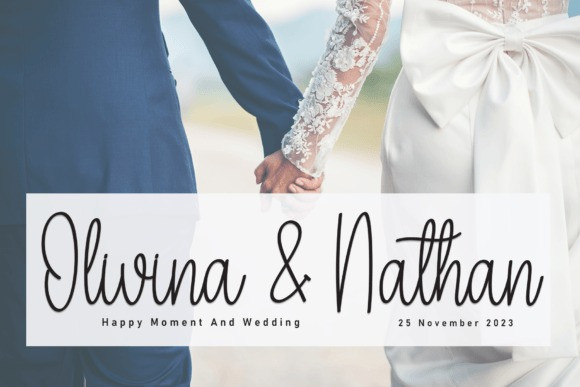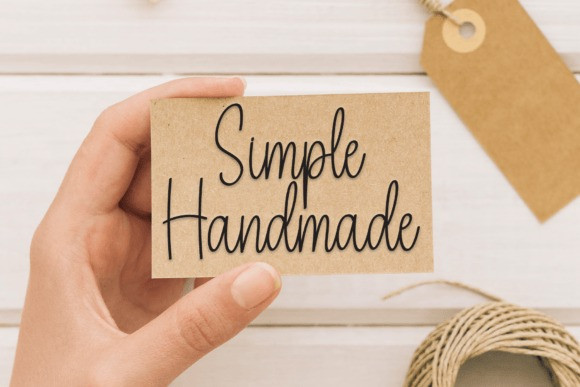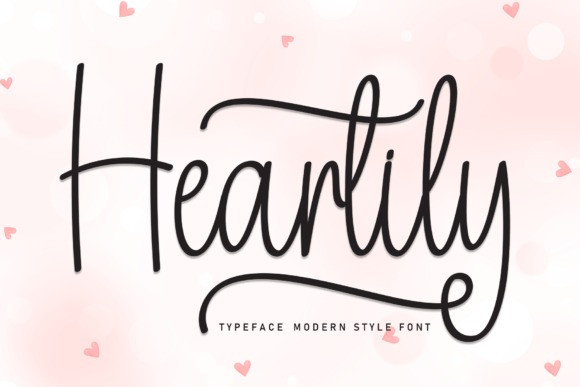
Heartily Script Font
Heartily Script Font is a sweet and friendly handwritten font. Its natural and unique style makes it incredibly fitting to a large pool of designs. The only limit is your imagination!